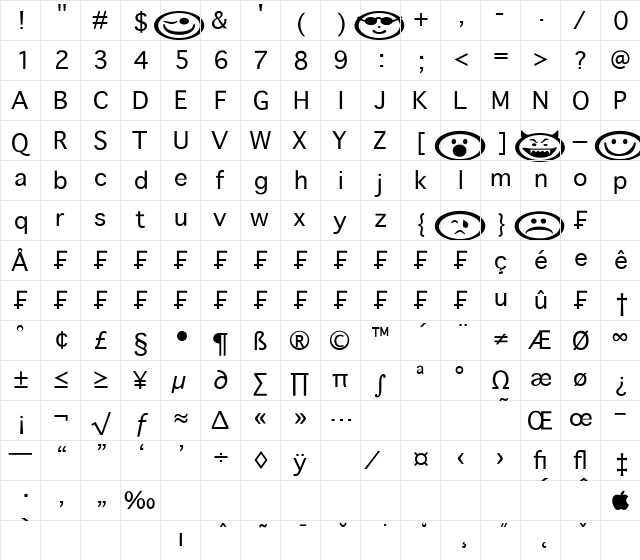
ChatFont Regular Font Preview
ChatFont Regular
ChatFont Regular Font Details
Design Context for ChatFont Typeface
ChatFont takes a measured approach to typography — its balanced proportions and neutral character make it a reliable workhorse for both digital and print work.